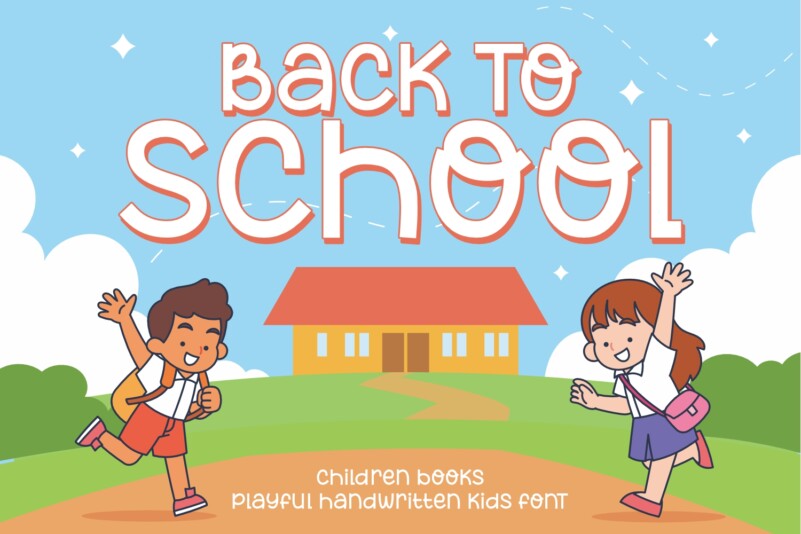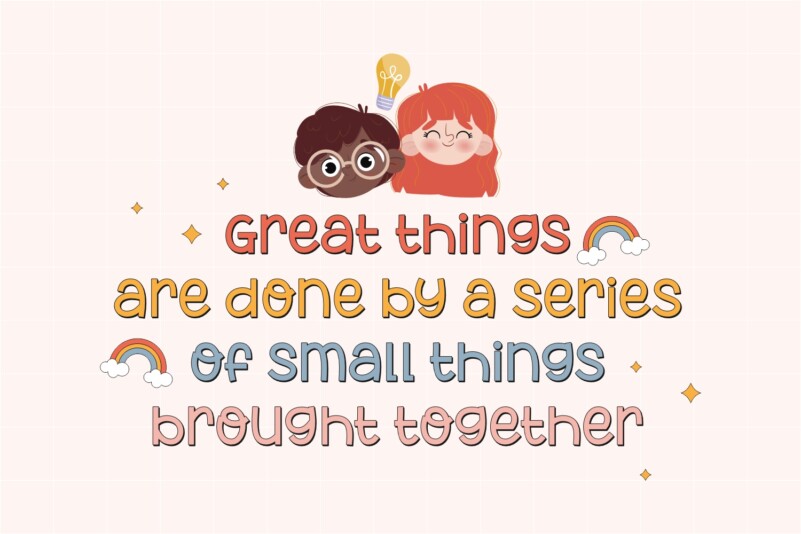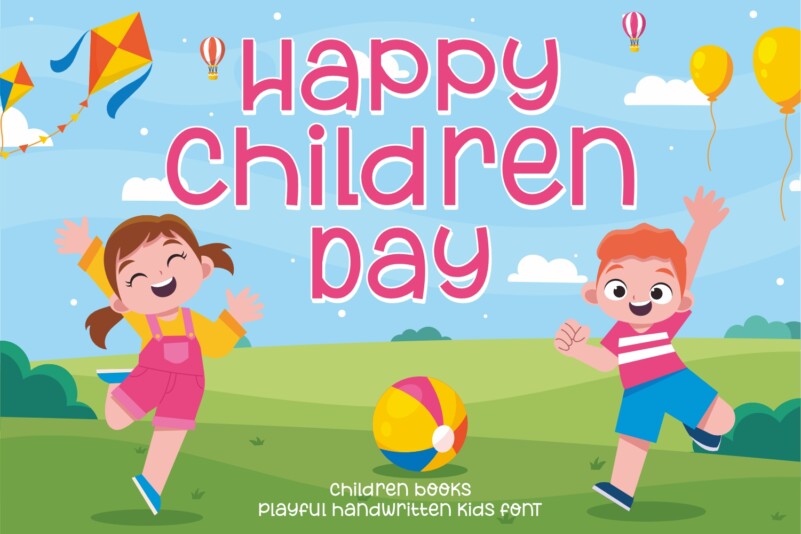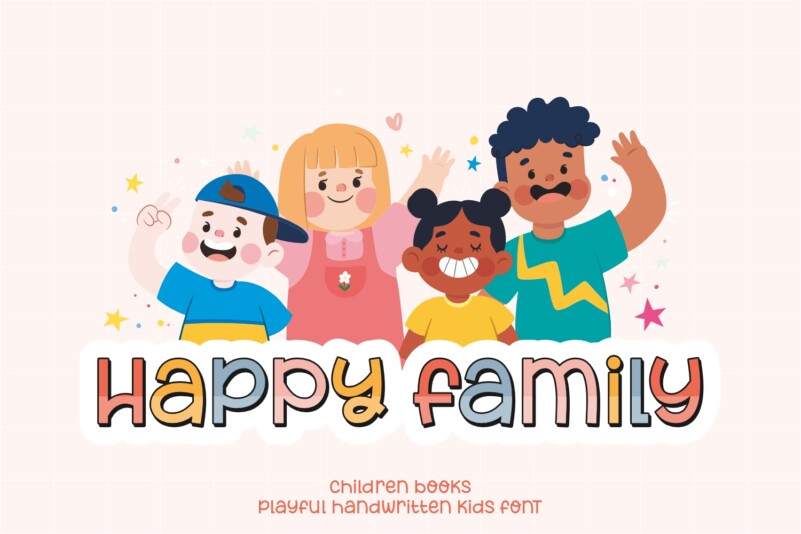
Children Books Display Font is bold and fun sans serif font. It brings joyful and happiness to all of us. Inspired by handlettering with marker pen with bold and strong style. This font is ideal for display, text, sticker, print, branding, logo, signage, with a set of optimal characters for your design in any layout.
Children Books will help you to create special and touching typographical design for childish projects, for every day or the happiest day in life, summer vacations, baby shower, birthday cards. It is really universal and playful font.